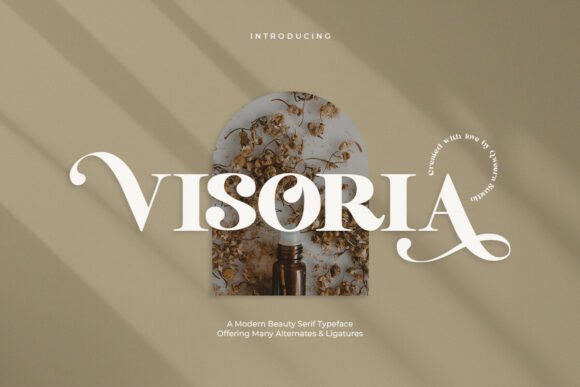
Bringing Visoria to Life in Handmade Creations
I was sitting at my desk, surrounded by blank cards and a fresh batch of candle labels waiting for text. The soft glow of the lamp above me cast a warm light over my workspace, and I knew it was time to choose the perfect font for this project. That’s when I reached for Visoria, a modern serif font with a touch of elegance that immediately felt right.
Visoria has a unique visual personality—its curves are smooth but not overly decorative, and its lines are confident yet approachable. It carries a sense of sophistication without being too formal. This makes it ideal for anything from boutique packaging to wedding invitations. When I first saw it on my screen, I could already picture how it would look on a handmade label or wrapped around a rustic wooden sign.
One of the things I love about Visoria is how well it works for short phrases. Whether it's a name on a mug, a tagline on a tote bag, or a title on a greeting card, the font adds a touch of refinement. I used it recently on a set of birthday invitations I was designing, and the way the letters flowed together made the whole piece feel more personal and special.
For my candle labels, I paired Visoria with a clean sans serif font to create contrast and balance. The serif font brought warmth and character, while the sans serif kept the information clear and easy to read. This combination worked especially well on small stickers and product tags where readability is key.
When I’m working on digital printables, I often use Visoria for headings or decorative elements. It adds a layer of style without overwhelming the design. For example, I created a printable wall art piece with seasonal greetings, and Visoria helped give it a polished, professional look that felt just right for the occasion.
Another favorite use for Visoria is in wedding stationery. I designed a welcome board for a client using this font, and the elegant ligatures and alternates gave the text a beautiful, flowing appearance. It wasn’t just a font—it was part of the story the couple wanted to tell through their event design.
If you're considering using Visoria for your own projects, be sure to check the included styles, alternates, and ligatures. These features can make a big difference in how the font looks on different materials and in various sizes. I’ve found that testing it on mockups before finalizing any design helps ensure it works well for both digital and physical formats.
For those who work with cutting machines like Cricut or Silhouette, Visoria is highly readable even at smaller sizes. I've used it for sticker sheets and found that the letterforms hold up well when cut, which is a huge plus for anyone creating physical products.
When pairing Visoria with other fonts, I find that a simple sans serif or a complementary script font works beautifully. This allows the design to remain cohesive while still offering visual interest. I’ve also used it alongside bold display fonts for headlines, letting Visoria take center stage in body text.
Visoria is a versatile typeface that fits into many creative contexts—from editorial design to brand identity. Its modern yet classic appeal makes it suitable for a wide range of handmade products, including packaging, signs, and shop branding. I've seen it shine on everything from boutique tags to holiday gift tags, and each time, it brings a sense of quality and attention to detail to the final product.
Whether you're designing for a small handmade shop or crafting digital assets for your audience, Visoria offers a level of design flexibility that's hard to match. Its elegant curves and stylish alternates open up endless creative possibilities, making it a go-to choice for any maker looking to elevate their work with a touch of sophistication.